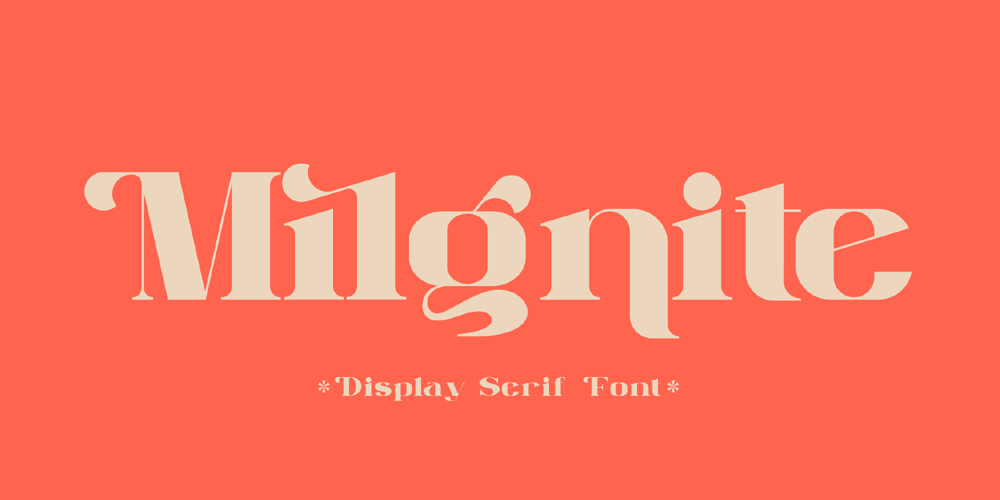
Milgnite Font Family was designed by Heru Utama Putra and published by Letterena Studios. Milgnite contains 2 styles and family package options. Milgnite is a modern and classic serif font with a unique style and ravishing looks.This typeface is perfect for an elegant & luxury logo, book or movie title design, fashion brand, magazine, clothes, lettering, quotes, and so much more.This font is PUA encoded, which means you can access all of the glyphs and swashes with ease!